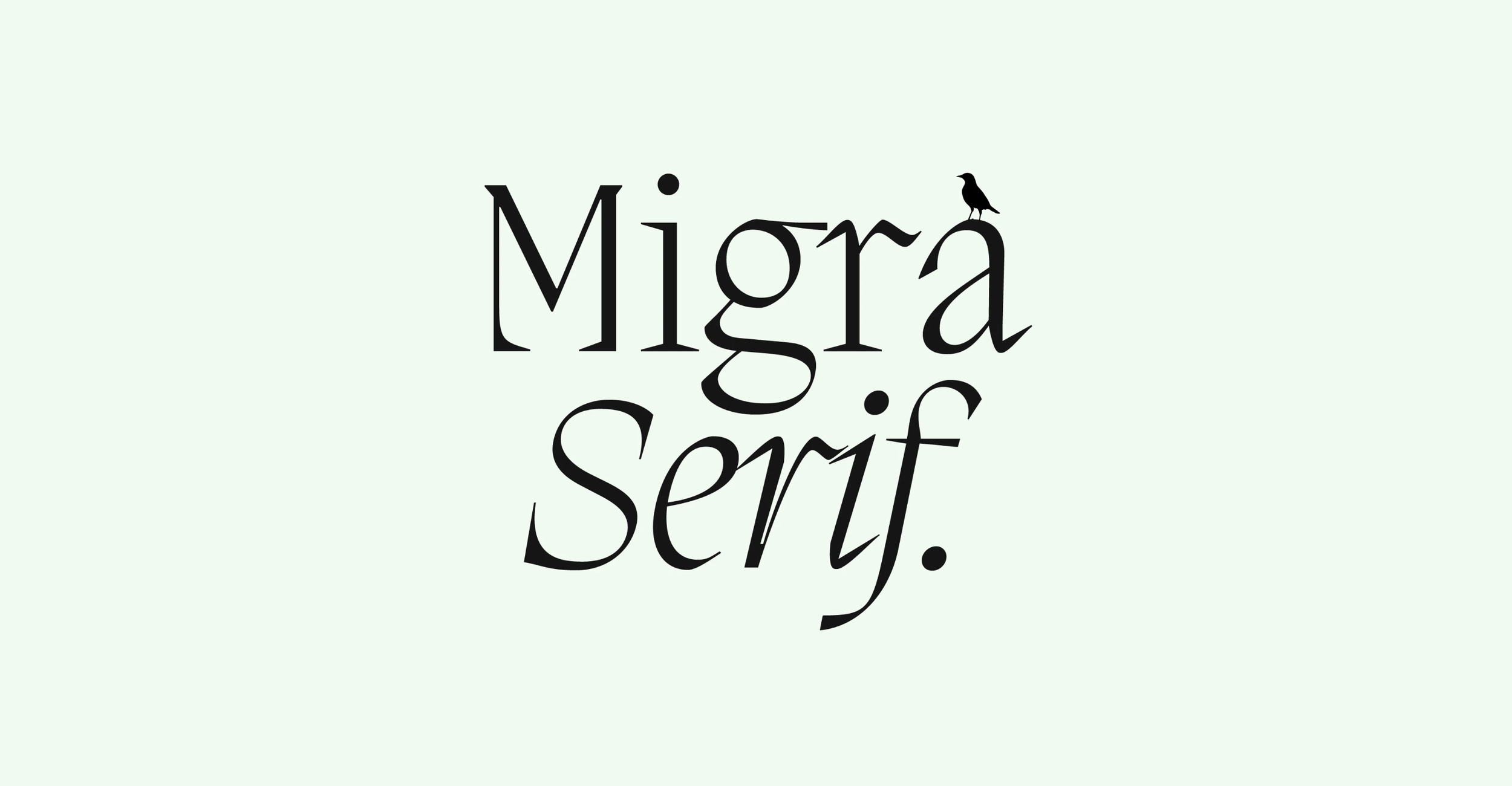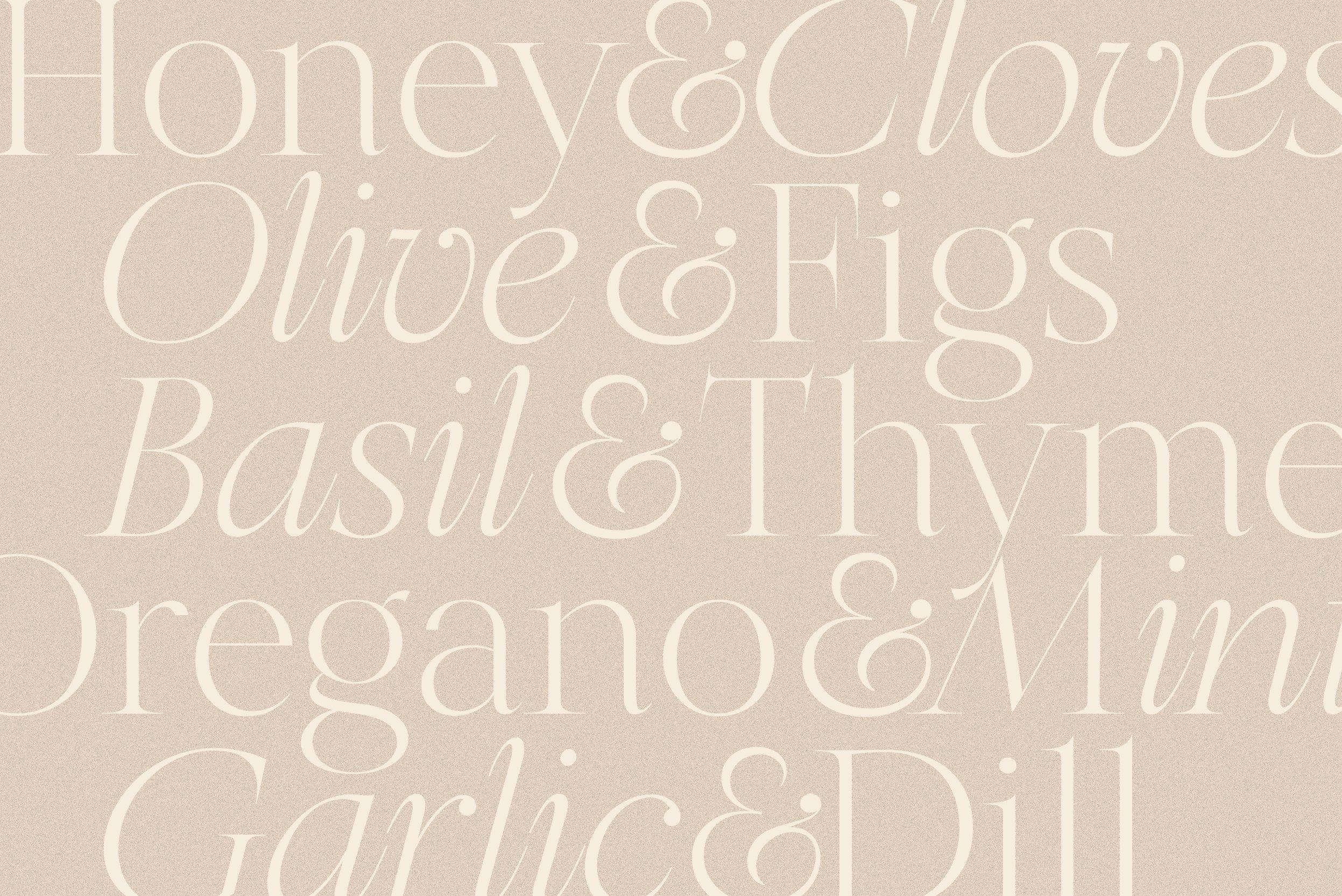
A Curated Guide to Timeless Fonts for Hospitality Branding
Great hospitality branding goes beyond appearance. It lives in feeling.
Long before a guest enters a lobby, unlocks a villa, or tastes a signature dish, typography has already set the tone. It shapes expectation, mood, and memory in subtle but powerful ways.
The right typeface can make a boutique hotel feel intimate and storied, position a resort as effortlessly refined, or give a seaside café the warmth of a personal retreat. In timeless hospitality branding, fonts are chosen not for trends, but for their ability to feel welcoming, elegant, and thoughtfully made.
Introducing 10 Editorial Picks — a curated, boutique selection crafted for hotels, resorts, restaurants, villas, and spas.
Let’s explore the typographic details that help transform spaces into unforgettable hospitality experiences.
🥇 Top 10 Editorial Picks (For Boutique, Luxury & Lifestyle Hospitality Brands)
1. Bradbury — Harmonais Visual
Gothic charm with refined structure. Bradbury evokes the feeling of historic inns, heritage boutique hotels, and intimate wine resorts. Perfect for signage, keycard sleeves, and crafted menus.
2. Olive & Figs — Harmonais Visual
Soft and sharp, botanical elegance. Ideal for wellness retreats, slow-living resorts, spa menus, botanical apothecaries, and organic cafés.
3. Tan Mon Cheri — TAN Type
Romantic and editorial, with a quiet Parisian aura. Perfect for boutique hotels, honeymoon villas, wine bars, and dreamy restaurant identities.
4. Constantine — Harmonais Visual
Architectural and stately — a natural choice for luxury resorts, destination hotels, and high-end dining establishments seeking a strong visual presence.
5. Migra — Pangram Pangram
Sculptural contrast and modern editorial finesse. Excellent for high-fashion-inspired hospitality brands, upscale rooftop lounges, and design-led resort concepts.
6. Auckland — Harmonais Visual
Understated and modern. Auckland works beautifully for contemporary boutique hotels, beach resorts, concept cafés, and all forms of minimalist hospitality branding.
7. Quiche — Adam Ladd
Elegant and polished with refined curves. Perfect for upscale restaurants, cocktail bars, chef-driven dining programs, and wine-forward hospitality concepts.
8. Muse — Harmonais Visual
Soft, poetic, and serene. Muse brings quiet sophistication to spa resorts, boutique villas, retreat centers, and consciously designed hotel experiences.
9. Pearl — TAN Type
Delicate, luminous, and feminine. Beautiful for boutique female-led stays, refined patisseries, intimate villas, and wellness hospitality brands.
10. Florentino — Harmonais Visual
Ornate Baroque details bring expressive luxury. Perfect for heritage hotels, fine dining restaurants, historic villas, and one-of-a-kind destination properties.
🌙 Final Thoughts
Hospitality branding is an emotional experience; a promise of comfort, care, and atmosphere.
These fonts help express that story through typography that feels timeless, refined, and warmly inviting.
Whether you’re designing for a heritage villa, a boutique hotel, a modern resort, a wellness spa, or an intimate restaurant, these typefaces provide the foundation for a brand identity that guests remember long after checkout.